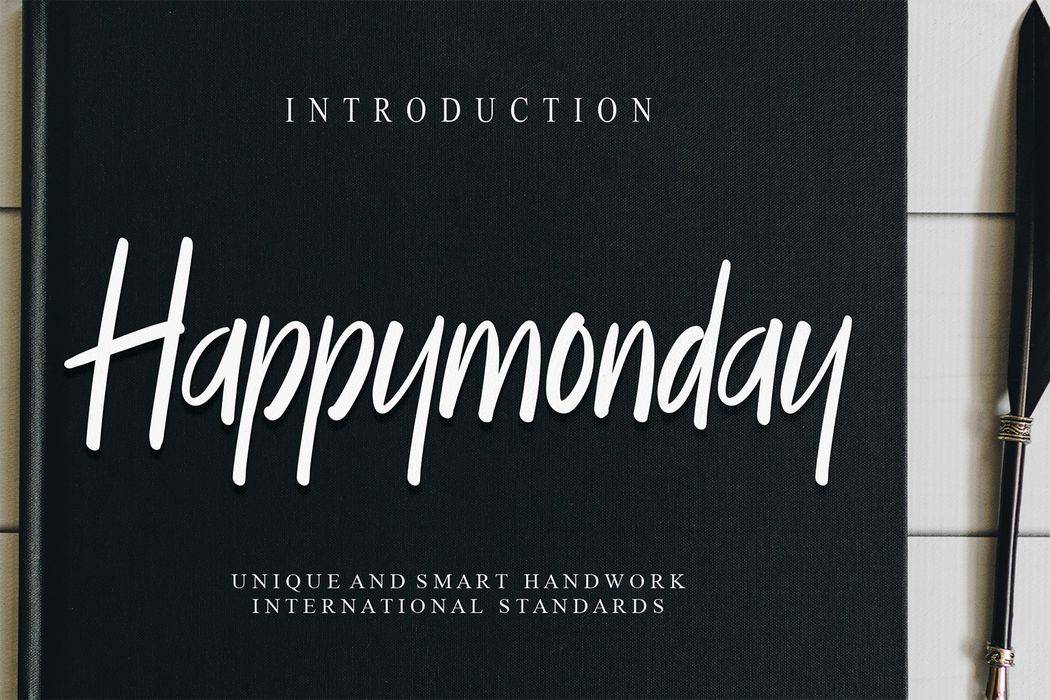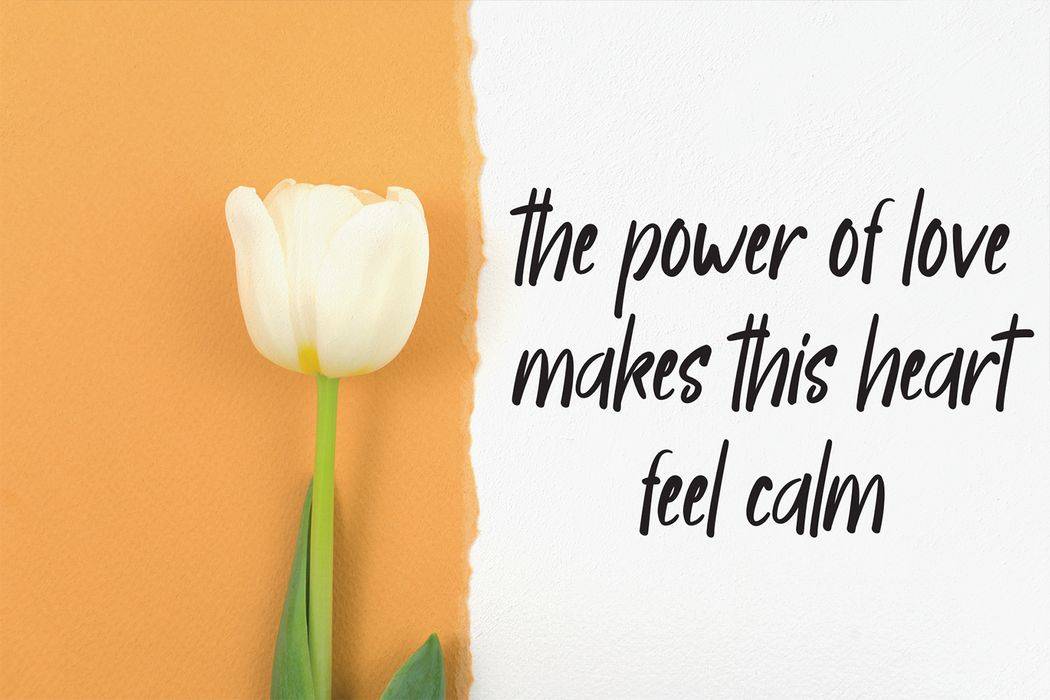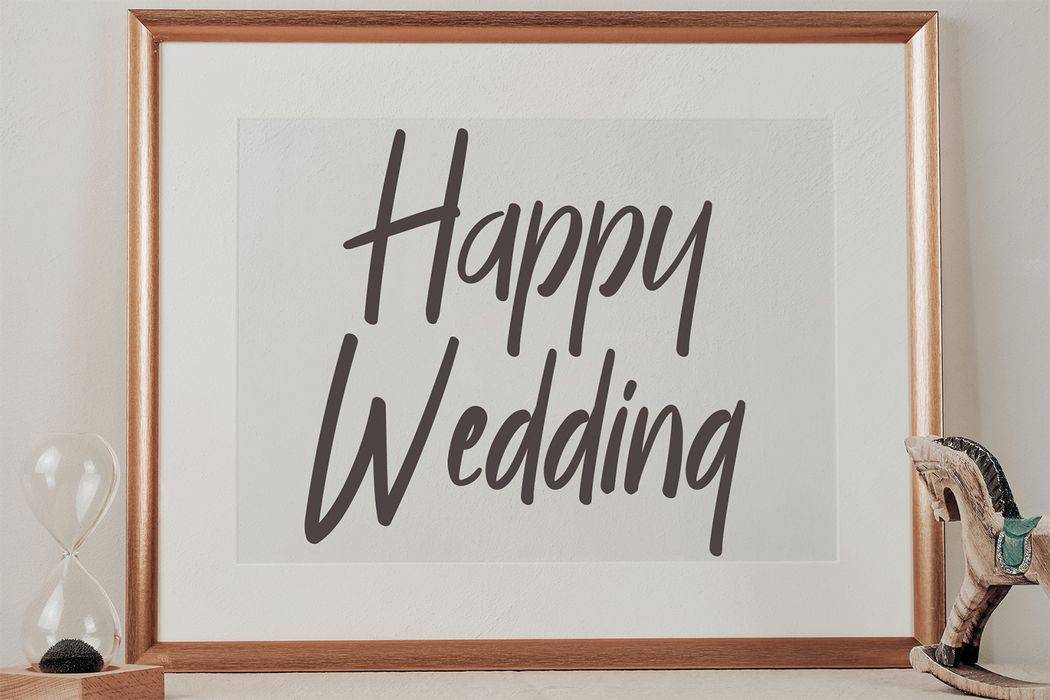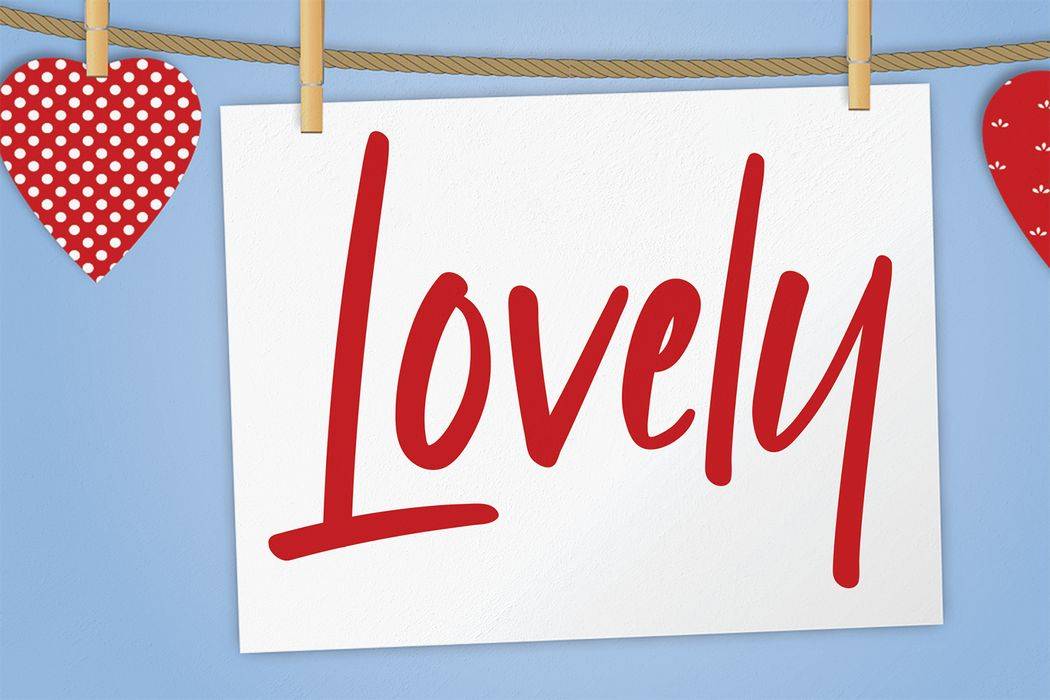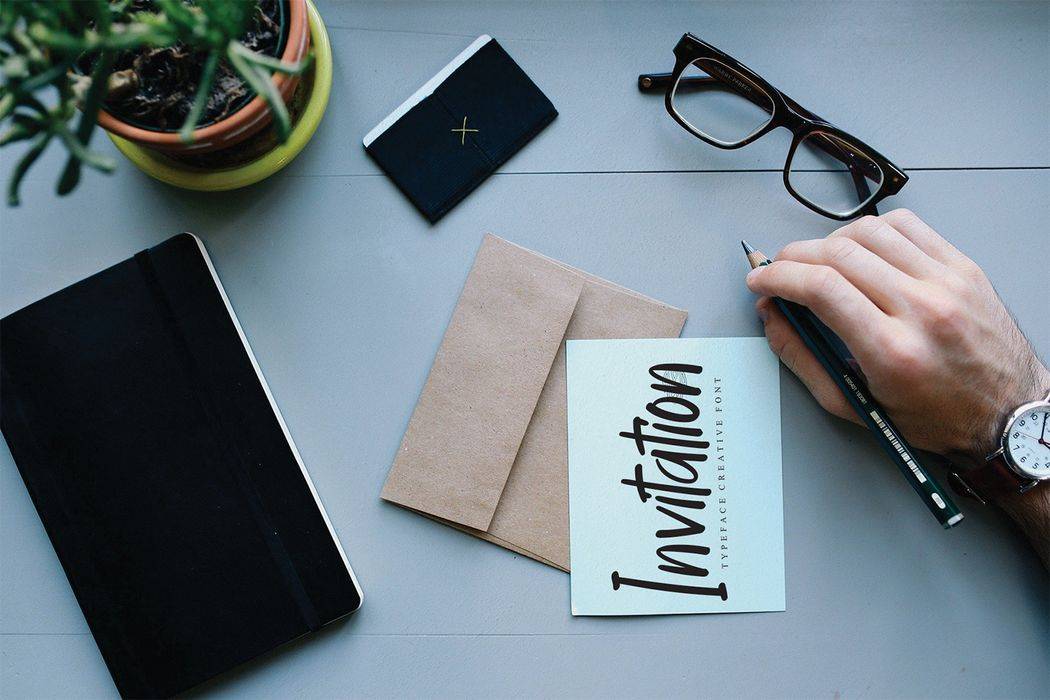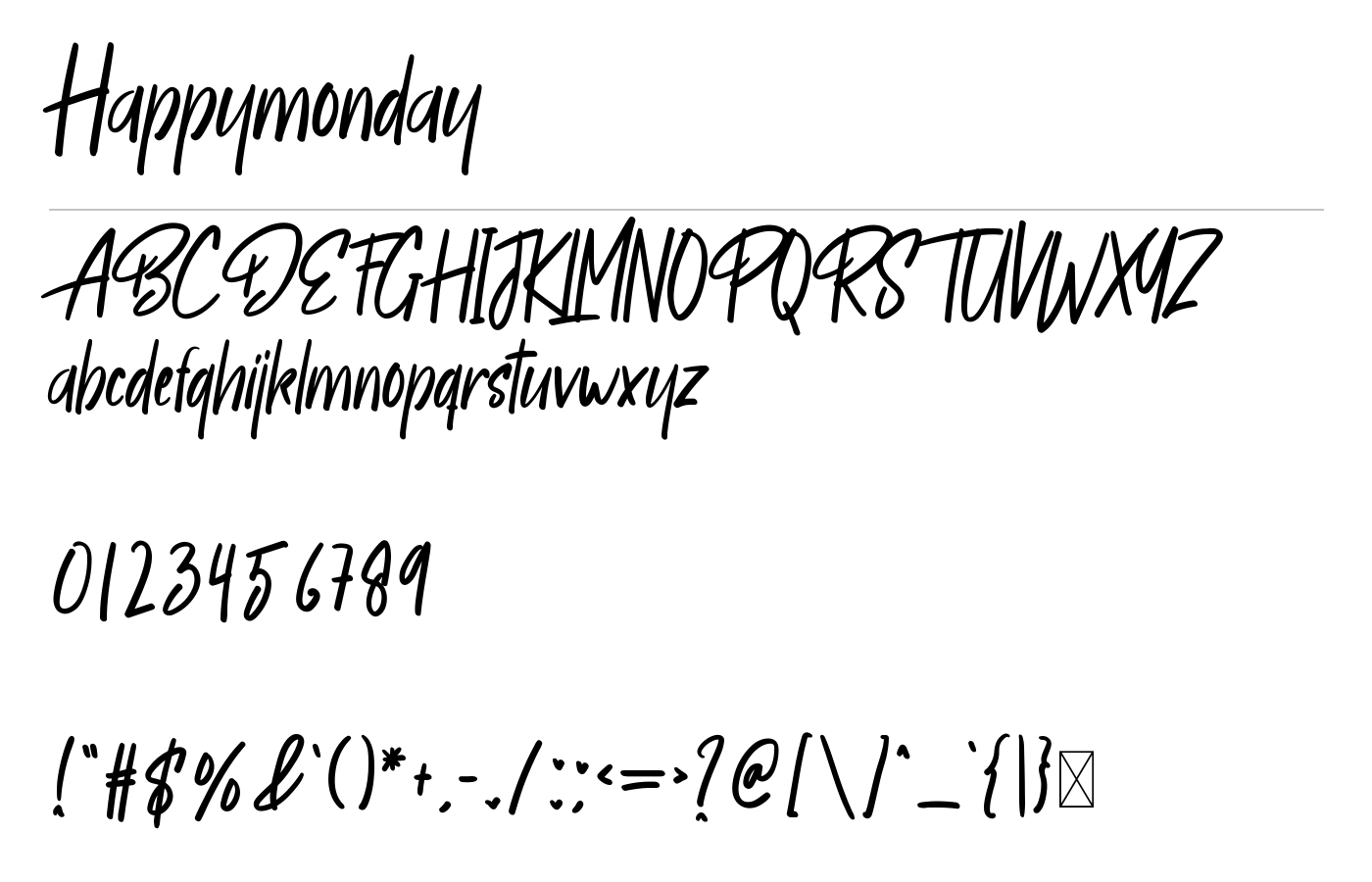
Happymonday is a lively, handwritten script font with a casual and friendly vibe, featuring tall, narrow letterforms and a smooth, flowing stroke style. Its light weight and slightly condensed width give it a modern, approachable feel, perfect for adding a personal touch to branding, social media, or informal editorial designs. This font works especially well for projects looking to convey warmth and individuality in a fresh, contemporary way.
Happymonday Font
About Happymonday Font